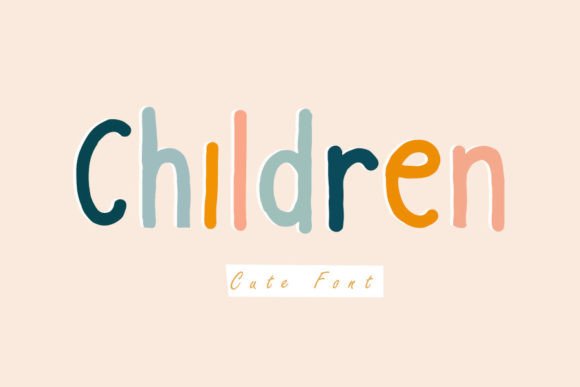
Introducing Children Font: The Perfect Playful Typeface for Your Creative Projects
Are you tired of using the same old fonts in your designs? Do you want to add a touch of playfulness and whimsy to your creative projects? Look no further than Children Font, a fun, cute, and cheerful handwritten font that’s sure to bring a smile to your face. In this article, we’ll take a closer look at Children Font, its features, and how you can use it to express your creative design ideas.
What is Children Font?
Children Font is a delightful handwritten typeface that’s perfect for designers, crafters, and anyone looking to add a personal touch to their projects. Its playful characters are carefully crafted to bring a sense of joy and fun to your designs, making it an excellent choice for a wide range of creative projects, from invitations and greeting cards to posters and social media graphics.
Key Features of Children Font
So, what makes Children Font so special? Here are some of its key features:
- Playful Characters: Children Font features playful characters that are sure to bring a smile to your face. Each letter is carefully crafted to be fun, cute, and cheerful.
- Handwritten Style: Children Font has a beautiful handwritten style that’s perfect for adding a personal touch to your designs.
- Easy to Read: Despite its playful nature, Children Font is easy to read, making it perfect for use in a wide range of creative projects.
- Versatile: Children Font is a versatile typeface that can be used in a variety of creative projects, from invitations and greeting cards to posters and social media graphics.
How to Use Children Font in Your Designs
Now that we’ve covered the features of Children Font, let’s take a look at how you can use it in your designs. Here are some ideas to get you started:
- Create Fun Invitations: Use Children Font to create fun and playful invitations for kids’ parties, baby showers, and other celebrations.
- Design Whimsical Posters: Children Font is perfect for creating whimsical posters for kids’ events, such as concerts, festivals, and workshops.
- Make Cute Greeting Cards: Add a personal touch to your greeting cards with Children Font, perfect for birthdays, holidays, and other special occasions.
- Enhance Social Media Graphics: Use Children Font to add a playful touch to your social media graphics, such as Facebook posts, Instagram stories, and Twitter headers.
Why Designers and Crafters Love Children Font
So, why do designers and crafters love Children Font? Here are some reasons:
- Unique and Playful: Children Font is a unique and playful typeface that’s sure to stand out in any design.
- High-Quality: Children Font is a high-quality typeface that’s designed to produce crisp and clear results, even at small sizes.
In conclusion, Children Font is a fun, cute, and cheerful handwritten font that’s perfect for designers, crafters, and anyone looking to add a playful touch to their creative projects. With its playful characters, handwritten style, and ease of use, Children Font is a must-have in your fonts library. So why wait? Download Children Font today and start expressing your creative design ideas!
Whether you’re a seasoned designer or a crafter looking for a unique typeface, Children Font is sure to delight. Its versatility and playfulness make it perfect for a wide range of creative projects, from invitations and greeting cards to posters and social media graphics. So go ahead, get creative, and have fun with Children Font!